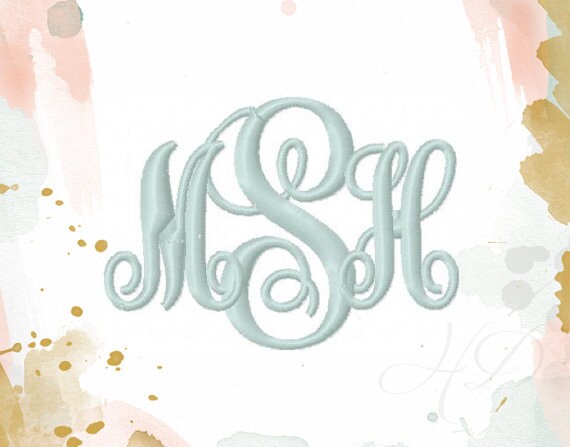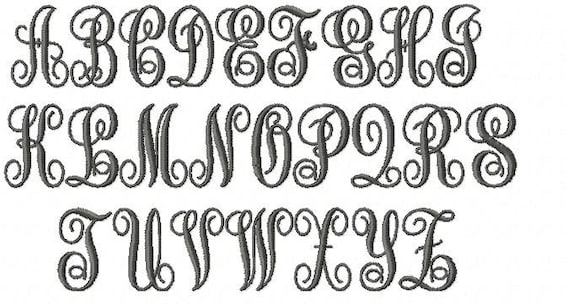
2" and 3" inch Embroidery Font Bold Classic Interlocking Monogram Satin Stitch 4x4 5x7 6x10 hoop Instant download BX Vine Interlocking
This set includes 52uppercase in 2 sizes
The larger of the two letter is 2.8" tall
The smaller of the two is 1.9" tall
*These letters are not quite 2 and 3" tall. They are sized perfectly to be merged together and fit into a 4x4 hoop.
*This a thicker and more dense version of the original font Monogram font:
This is my most popular font, because it has a slightly wider stitch than other similar in style. I have adapted it to create a thicker stitch for a more striking finished product.